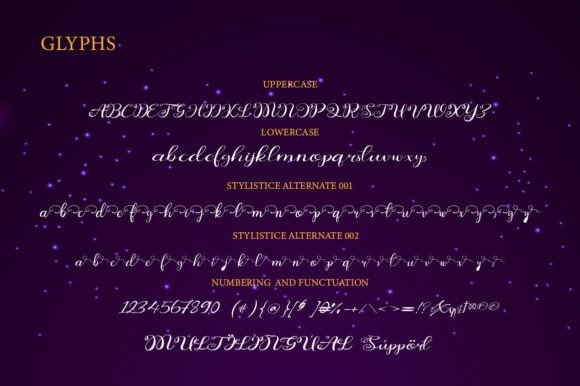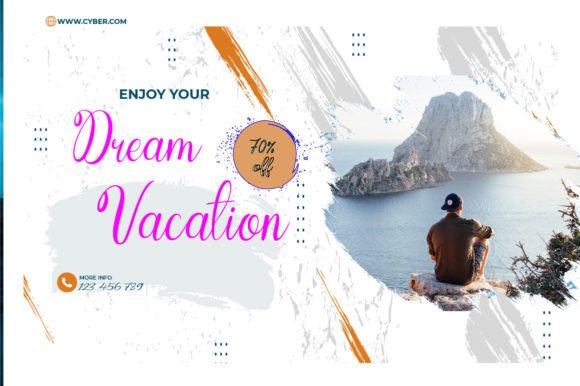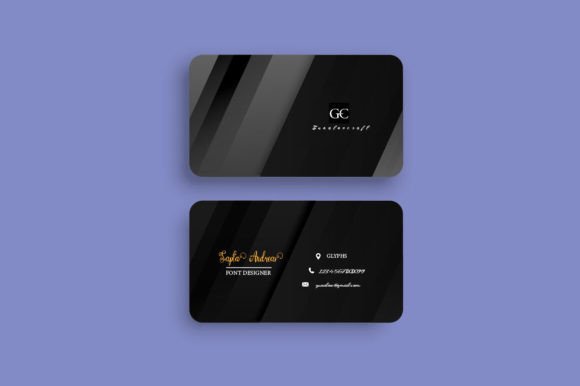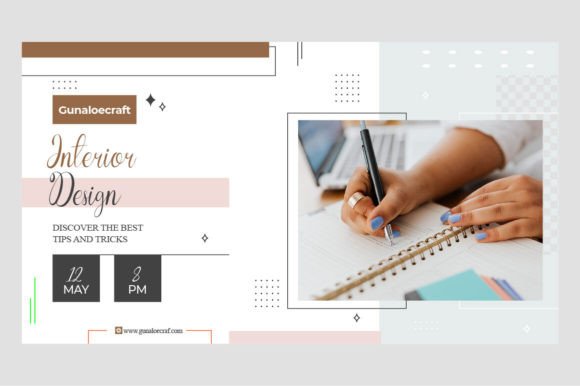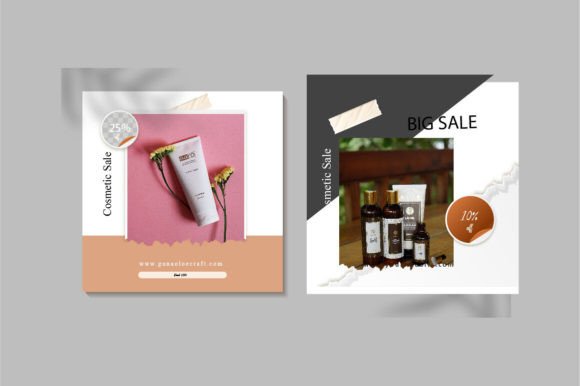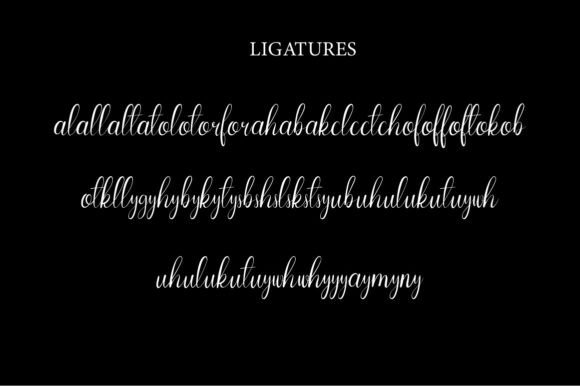
Introduction to Payhu Font
As a designer, there’s nothing quite like the thrill of discovering a new font that sparks creativity and inspires your next project. It’s that moment when the ideas start flowing, and your imagination runs wild. For me, it was the moment I stumbled upon the Payhu Font – a beautiful script font that has been a game-changer for my design work.
The Payhu Font is more than just a pretty face; it’s a versatile design resource that can elevate any creative project. With its high-quality design and transparent background, it’s the perfect addition to your design toolkit. Whether you’re working on a signature, stationery, or website header, the Payhu Font is sure to impress. And the best part? It’s available for free download, making it an accessible resource for designers of all levels.
Key Features of Payhu Font
- High-quality design resource with a unique and creative style, perfect for various projects.
- Designed with a high level of detail, making it suitable for use in logos, branding, and other creative projects.
Honest Review: Payhu Font
I recently came across the Payhu Font while searching for a free download to add some flair to a creative project. After giving it a try, I’m here to share my honest review.
- ✨ High-quality design: Payhu Font features beautiful, hand-drawn characters that are perfect for creating a unique and eye-catching visual identity.
- ✨ Versatility: This font is great for a variety of design projects, from branding and marketing materials to digital products and web design.
- ⚠️ Limited character set: Payhu Font only includes a limited set of characters, which may not be suitable for projects that require a wide range of typography.
- ⚠️ Transparent background: The font’s transparent background can be tricky to work with, especially when designing for digital products or web design.
Overall, I’m impressed with Payhu Font’s high-quality design and versatility. While it may have some limitations, it’s a great resource for designers looking for a unique and free design solution. Just be sure to test it out thoroughly before committing to a project.
Tips for getting the most out of the Payhu Font include experimenting with different font sizes and styles to add visual interest to your design. You can also use it in combination with other design elements to create a unique look.
Common use cases for the Payhu Font include branding materials, marketing materials, and website design. Its high-quality design makes it perfect for a variety of creative projects.
Alternatives to Payhu Font
Great Vibes Font is a high-quality, elegant script font perfect for creative projects that require a touch of sophistication. It’s ideal for use in wedding invitations, branding, and other design elements where a delicate, handwritten feel is desired. With its transparent background and free download option, it’s a great alternative to Payhu Font for designers looking for a high-end look without the premium price.
Alex Brush Font is a beautiful, handwritten font that’s perfect for adding a personal touch to creative projects. Its high-quality design makes it ideal for use in logos, branding, and other design elements where a unique, hand-crafted feel is desired. Compared to Payhu Font, Alex Brush Font has a more rustic, organic feel that’s perfect for projects that require a bit of edge and character.
Ostrich Sans Font is a modern, high-quality sans-serif font that’s perfect for use in a variety of creative projects. Its clean design and transparent background make it ideal for use in digital design, branding, and other design elements where a sleek, modern feel is desired. While it may not have the same level of elegance as Payhu Font, Ostrich Sans Font is a great alternative for designers looking for a high-quality font that’s easy to use and customize.